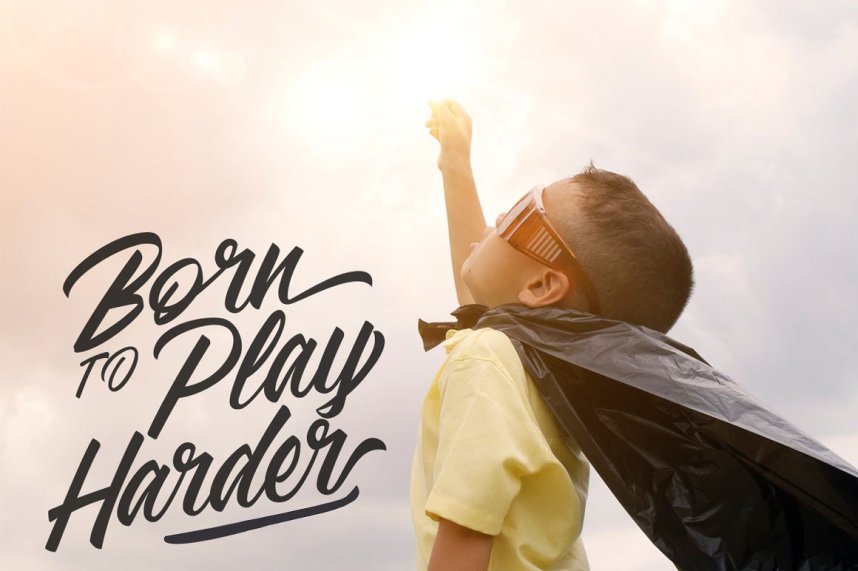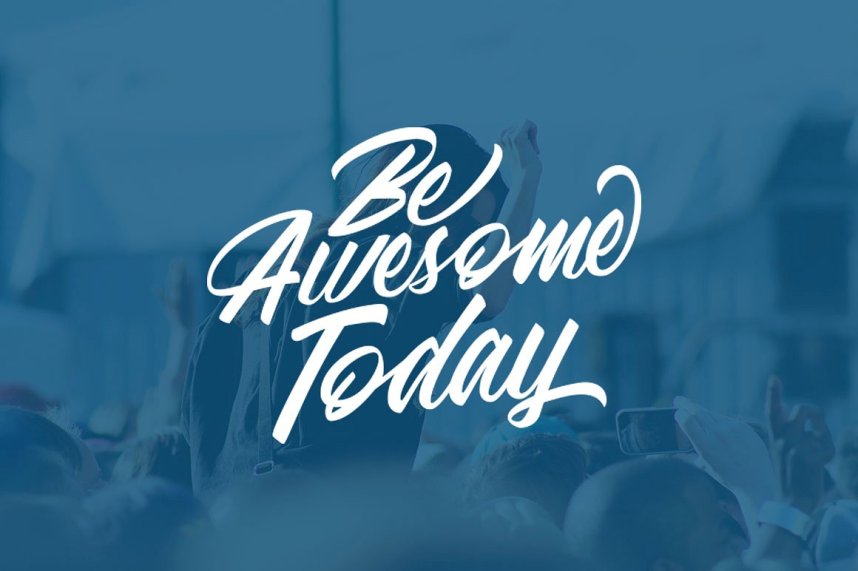
Adelaide Script Font – Free Demo
Hi friends! If you are looking for a font script brush, this will be a perfect choice. Introducing Adelaide! It is designed by Megi.satyo. Adelaide adalah script typeface with sense calligraphy style clean. ideal for logos, poster, branding, quotes, product, merchandise, name tag dll. It contains a full set of lower & uppercase letters, alternative characters, a large range of punctuation, numerals, and multilingual support. The alternative characters in this Adelaide font were divied into several OpenType Feature, Stylistic Sets, and Ligature.